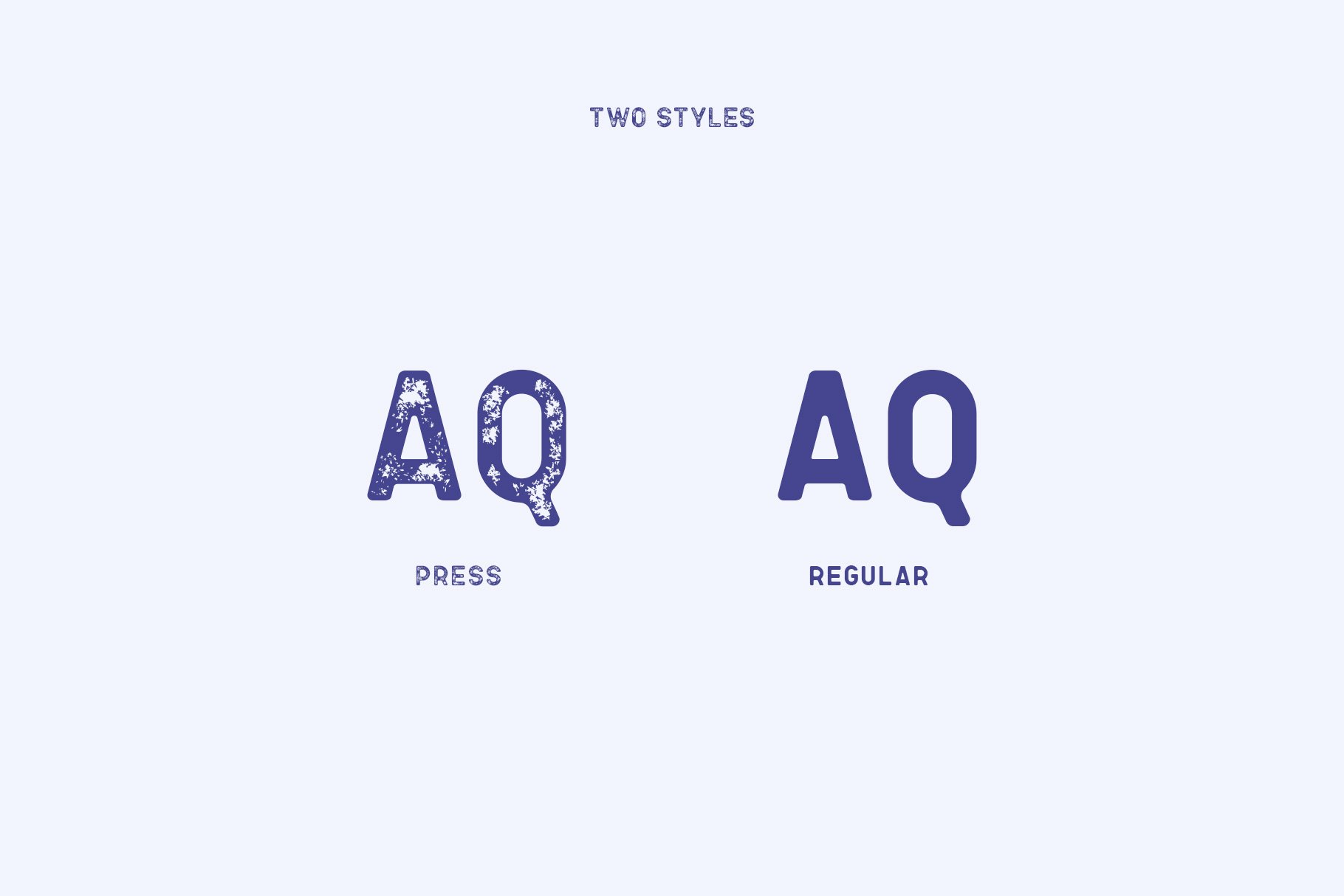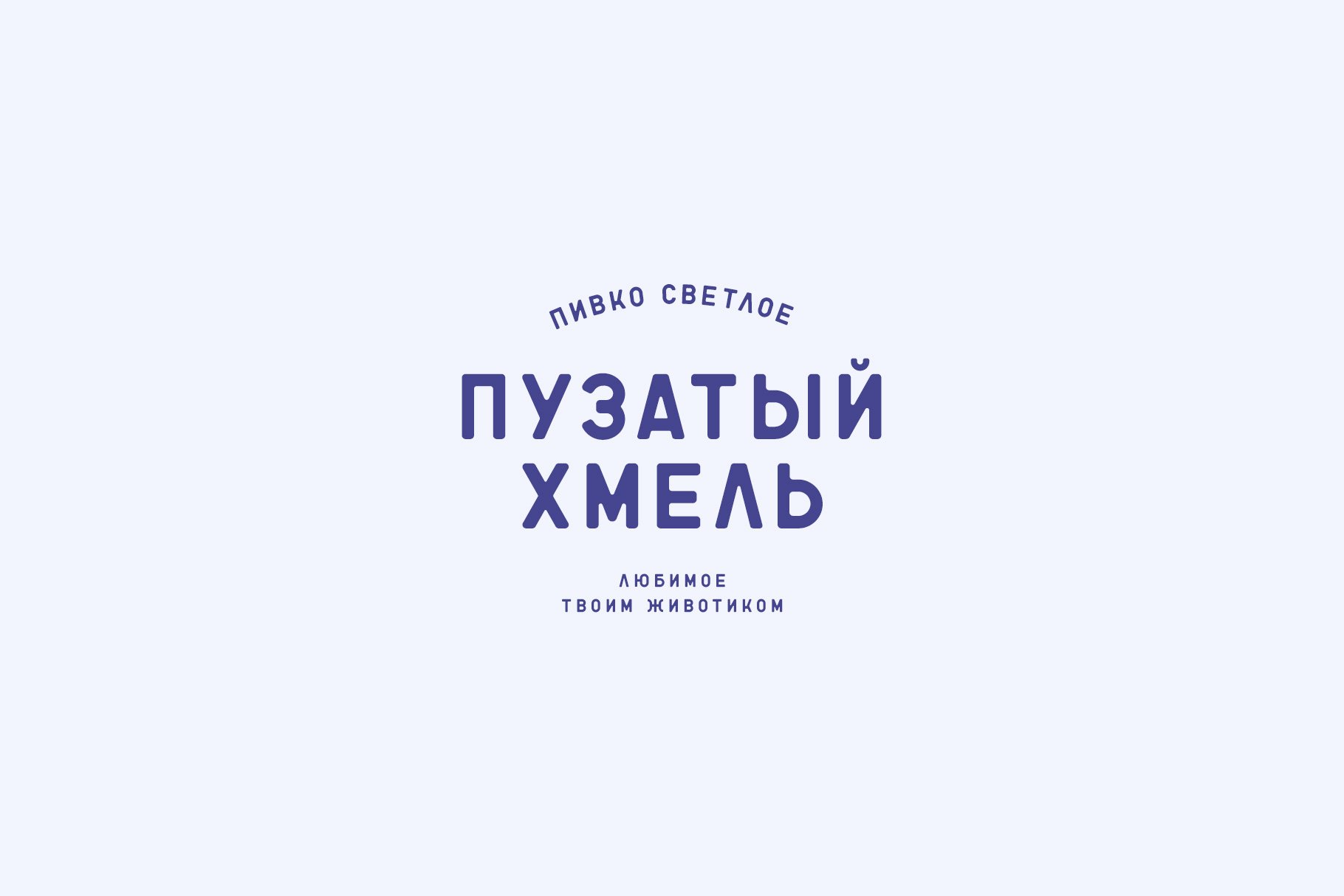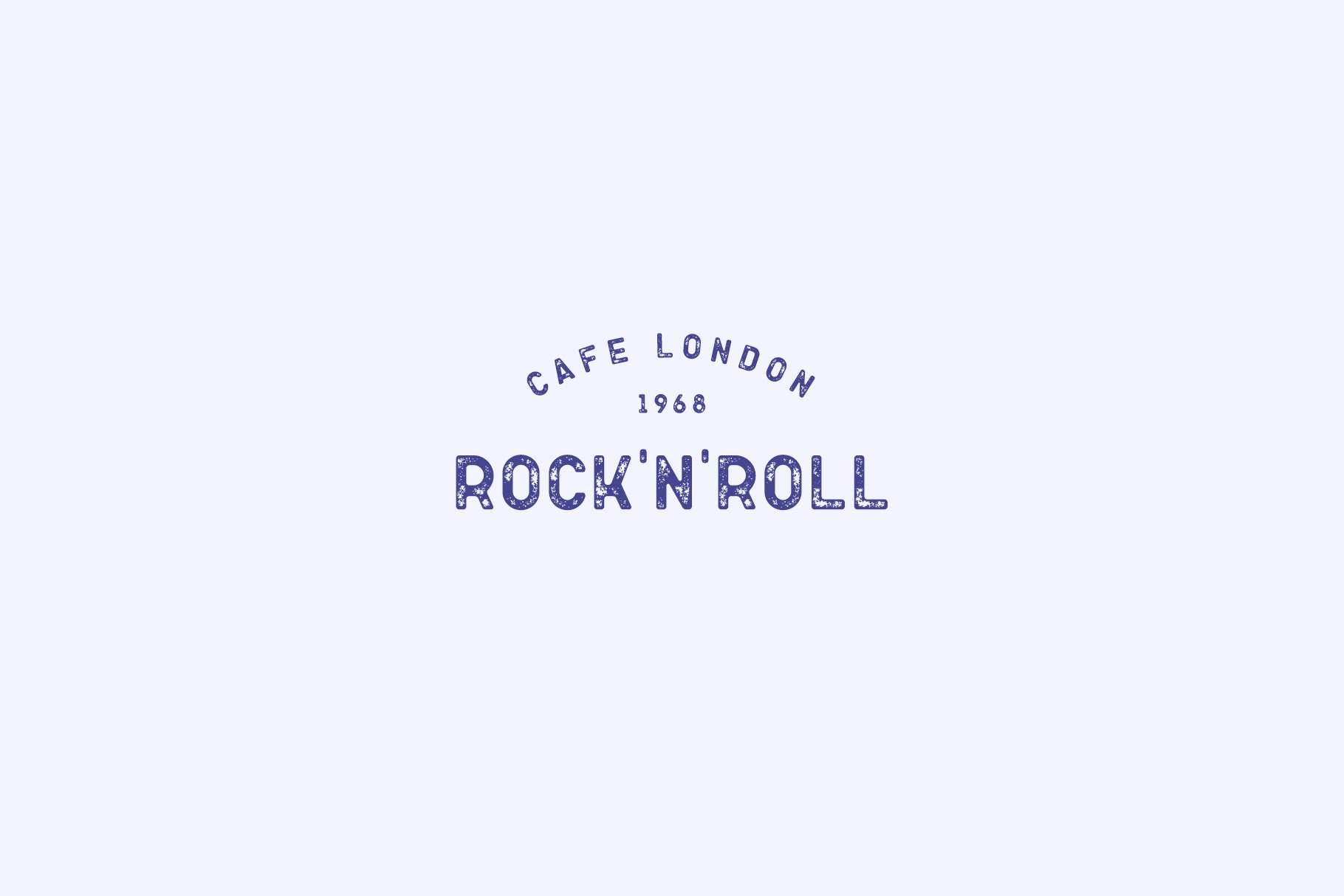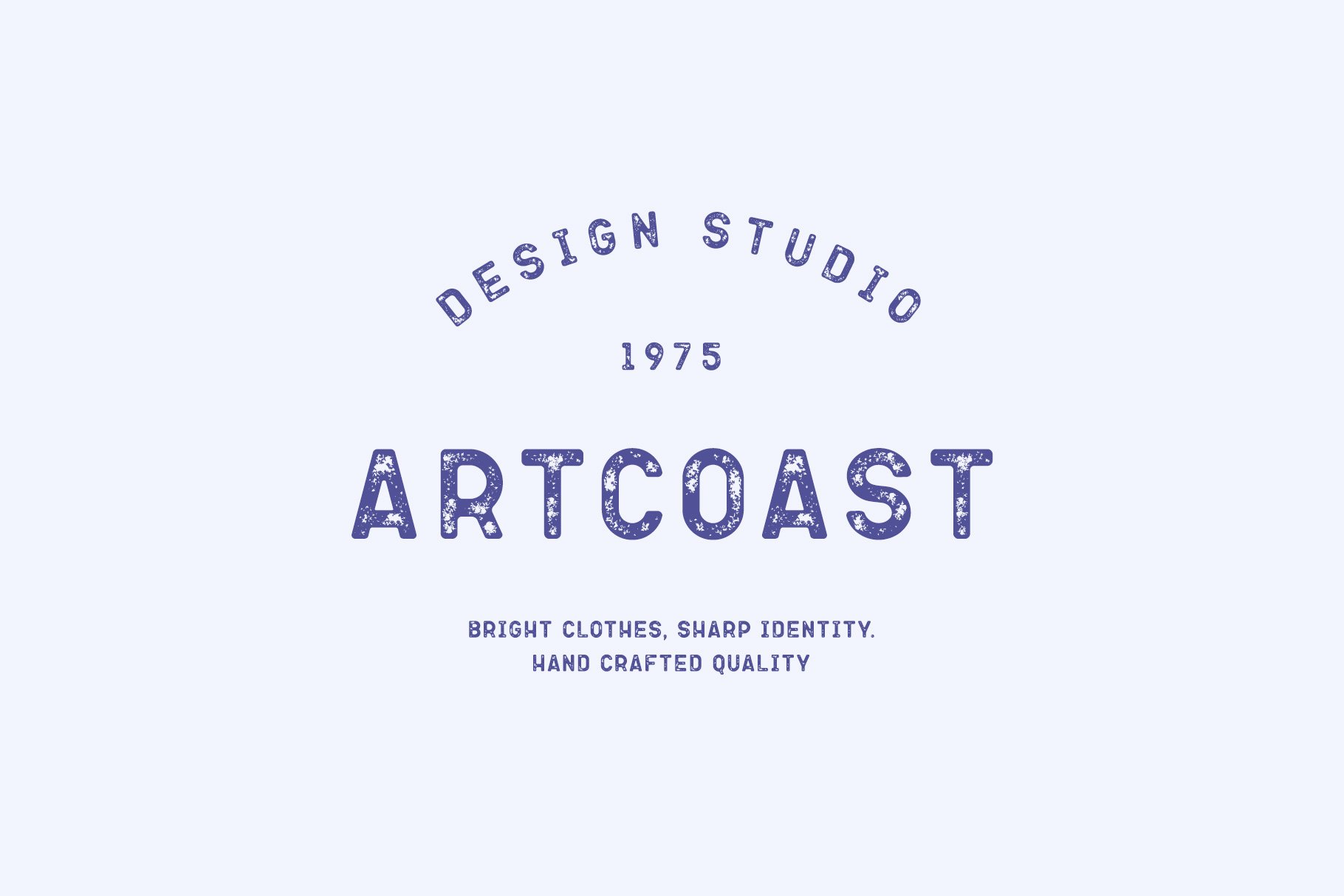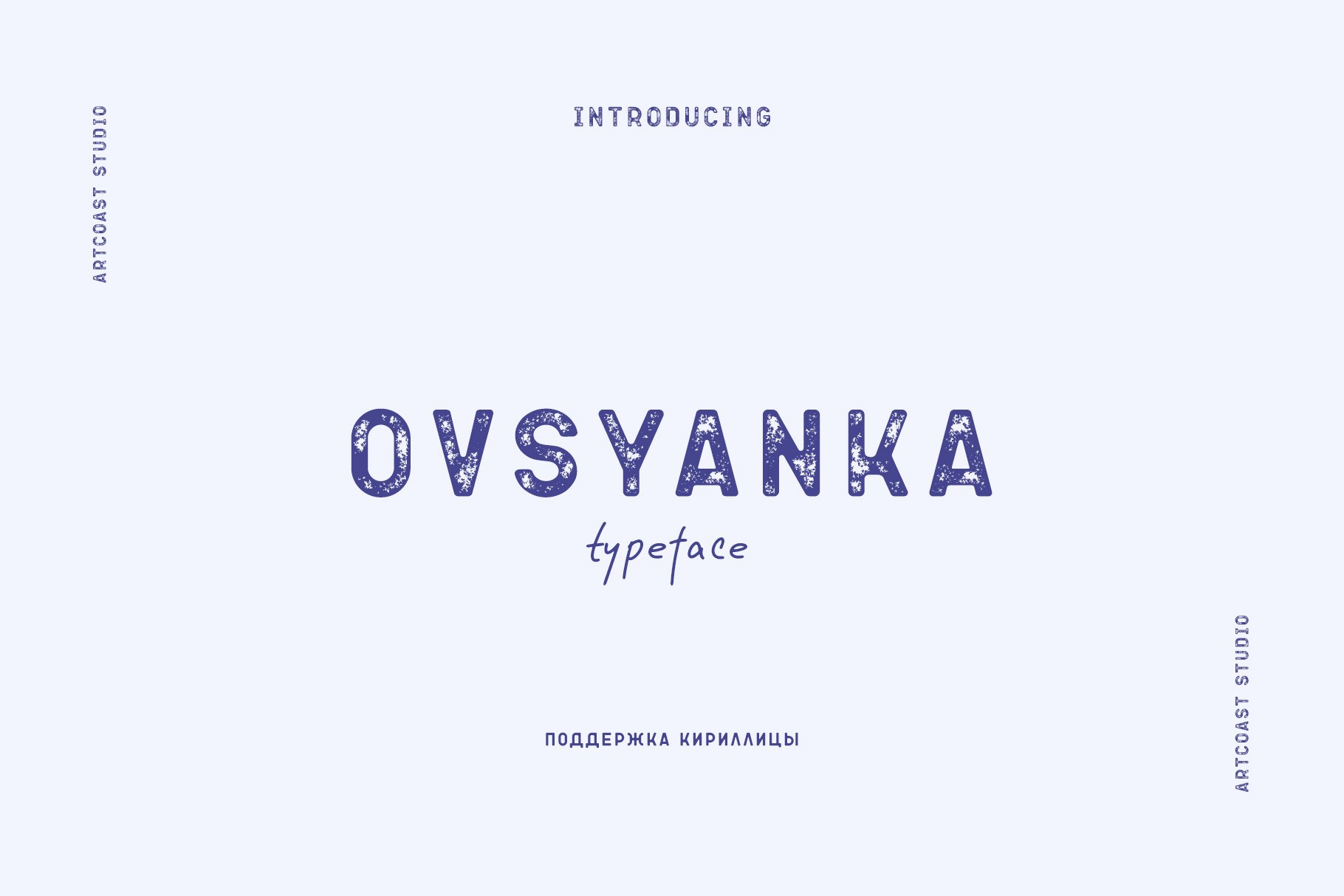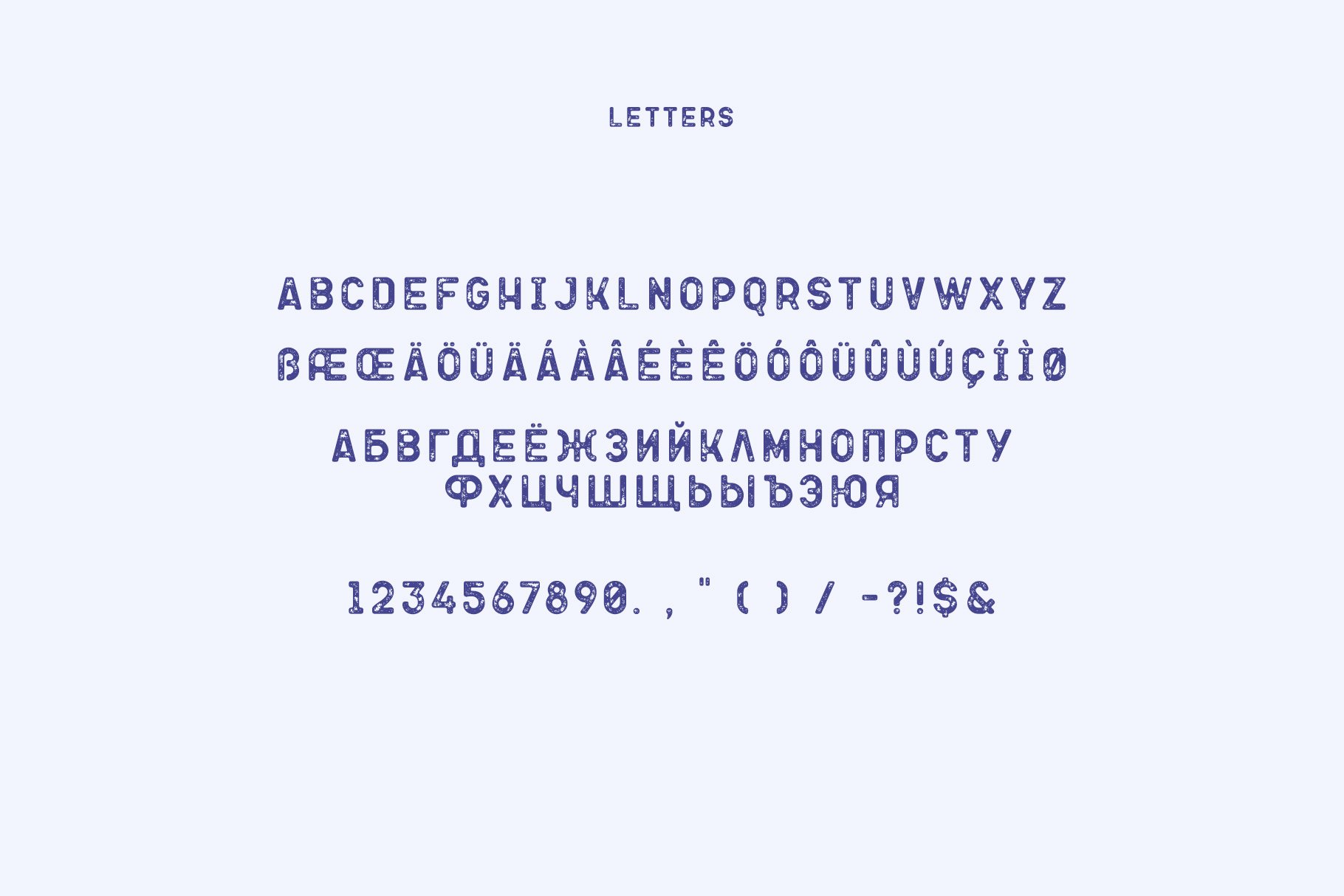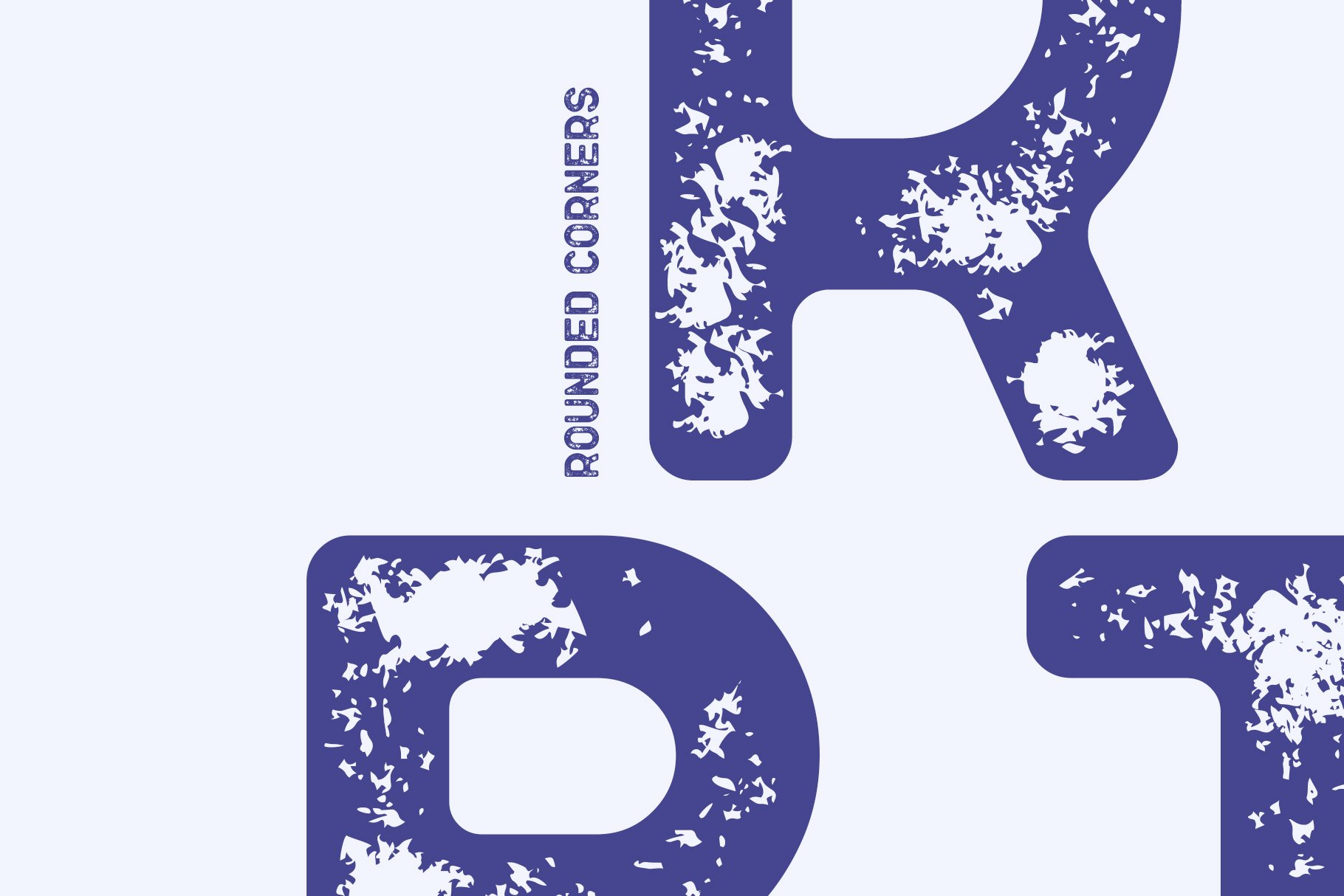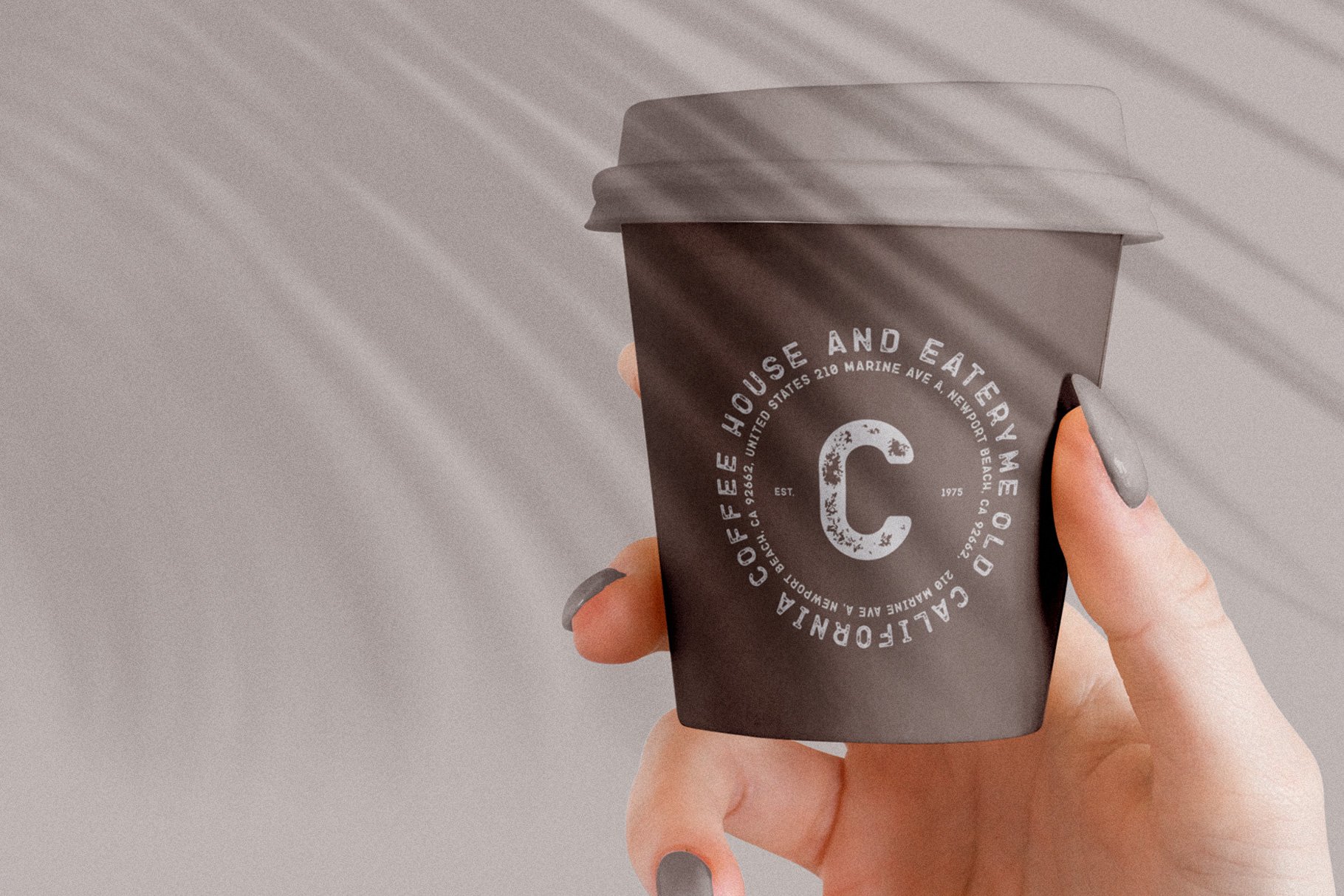
Ovsyanka Typeface: Craft Unique Designs with Character
Ovsyanka Typeface - Cyrillic & Latin Extended
Meet Ovsyanka – a typeface that stands out with its distinctive rounded corners and the alluring effect of worn-out letters. It’s a stylish font that brings a unique character to packaging design, creating an instant visual appeal.
Ideal for infusing personality into packaging, Ovsyanka works wonders on everything from chocolate and coffee packets to a wide array of product labels. It’s designed to capture attention and make your products irresistible on the shelves.
Beyond packaging, Ovsyanka’s versatility shines through in various projects. It’s perfect for crafting vibrant and wholesome labels, and it adds an unexpected twist to marketing campaigns, ensuring your brand speaks volumes.
• Latin Extended
• Cyrillic